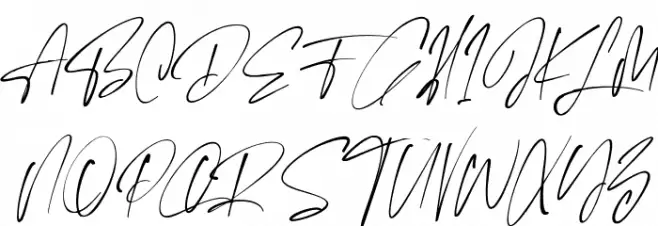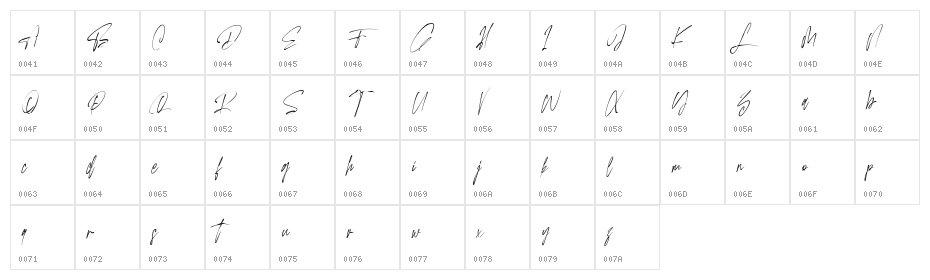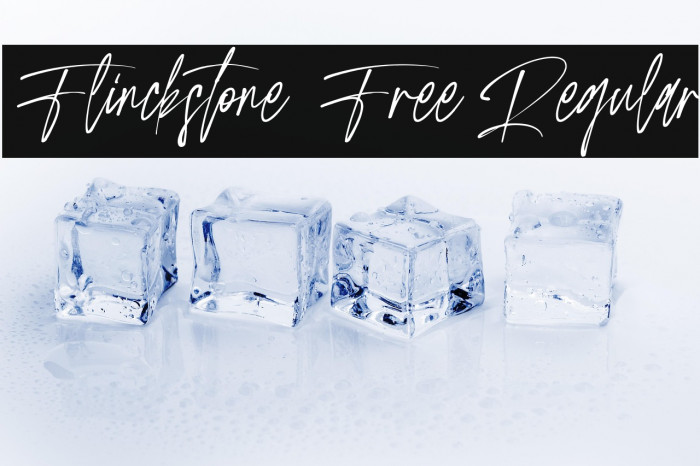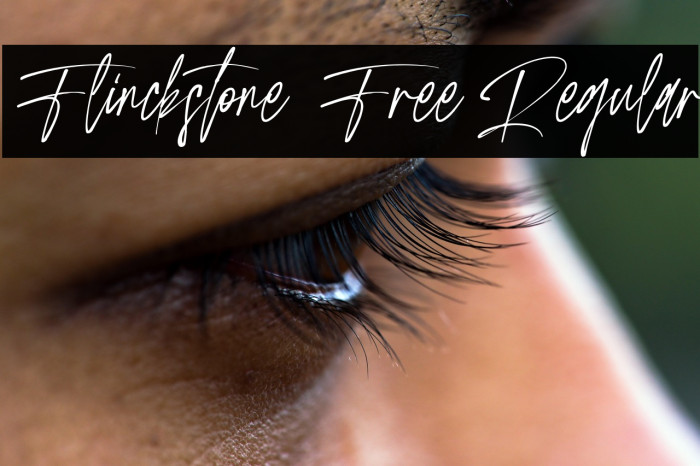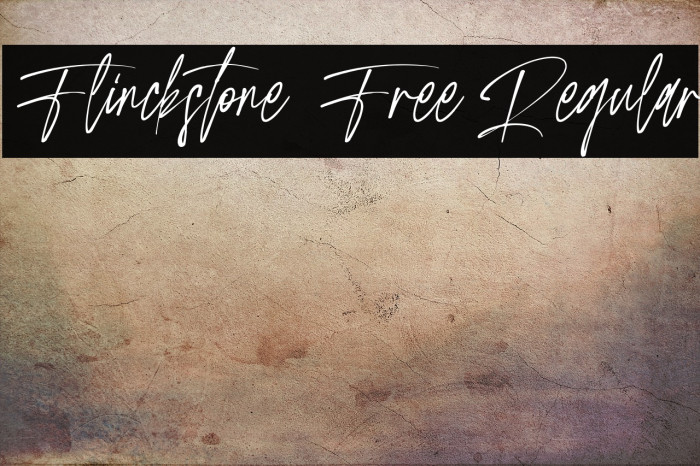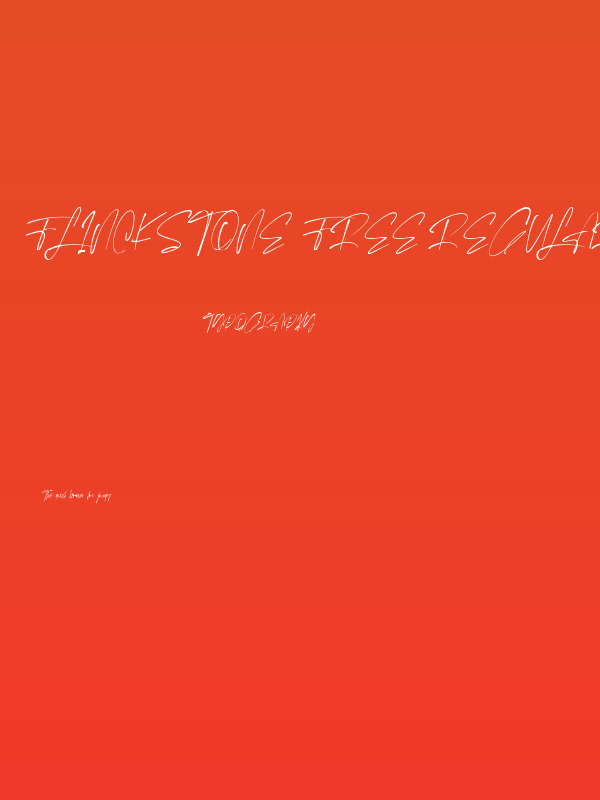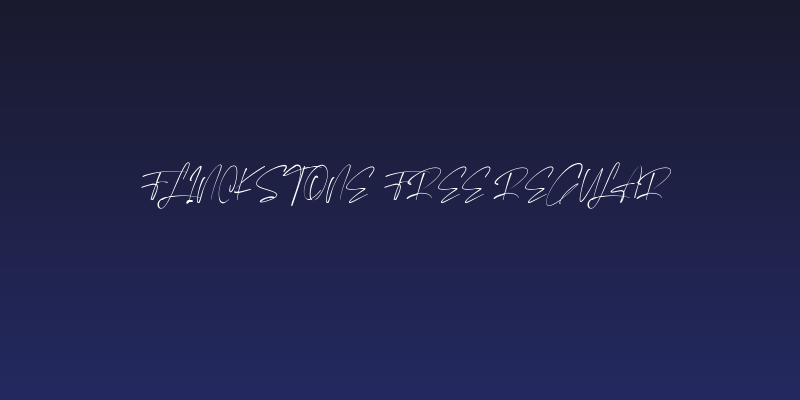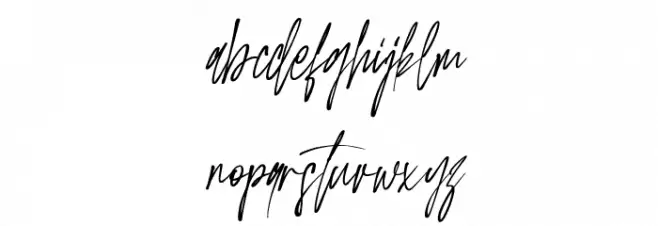
Flinckstone Free Regular Font
Flinckstone Free Regular Description
This font features an elegant, flowing script style that mimics natural handwriting with a touch of sophistication. The characters are connected, creating a seamless and fluid appearance. The strokes are thin and delicate, adding a sense of grace and refinement. The overall look is both modern and classic, making it versatile for various design applications. The uppercase letters are bold and prominent, while the lowercase letters maintain a consistent flow. The numerals and special characters are designed to match the script's aesthetic, ensuring a cohesive look across all text elements.
| Overall Style | Elegant, Modern |
| Use Case | Logos, Invitations, Branding |
| Proposed Projects | Ideal for wedding invitations, greeting cards, branding, and elegant packaging designs. |